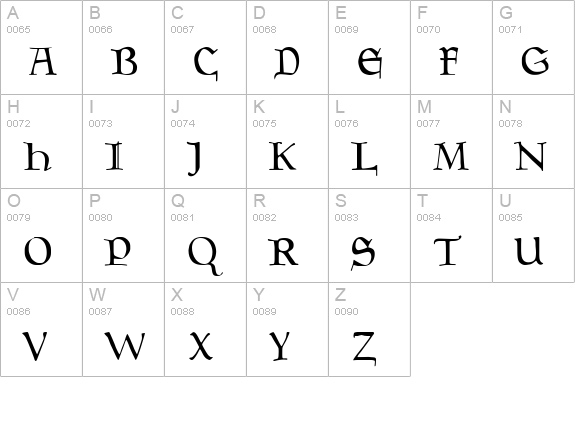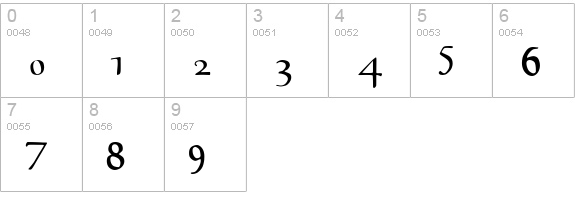
Magic:the Gathering Font Details
Introducing the enchanting Magic: the Gathering font, a captivating typeface that brings the essence of the beloved trading card game to life. Designed with intricate details and elegant curves, this font pays homage to the mystical world of spells, creatures, and epic battles that have enthralled players for decades. With its versatile nature, the Magic: the Gathering font effortlessly combines the realms of fantasy and typography, making it a perfect choice for various design projects. Whether you're designing posters, creating game-inspired graphics, or crafting invitations for a magical gathering, this font is sure to add a touch of enchantment to your creations. And the best part? The Magic: the Gathering font is freely available to download at FontsMarket.com. This means that you can harness its captivating power without any restrictions, allowing your imagination to soar as you incorporate it into your designs. Craft stunning visuals, evoke the spirit of adventure, and mesmerize your audience with this awe-inspiring font that captures the essence of the Magic: the Gathering universe. So, why wait? Unleash your creativity and embark on a design journey like no other with the freely available Magic: the Gathering font from FontsMarket.com. Let the magic unfold as you bring your visions to life with this extraordinary and captivating typeface.